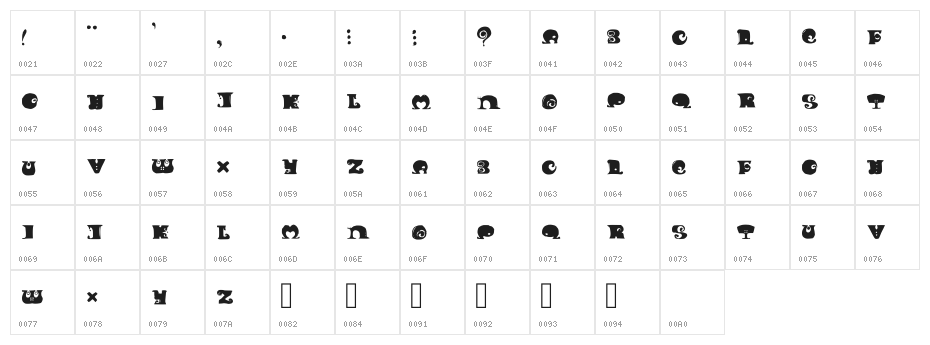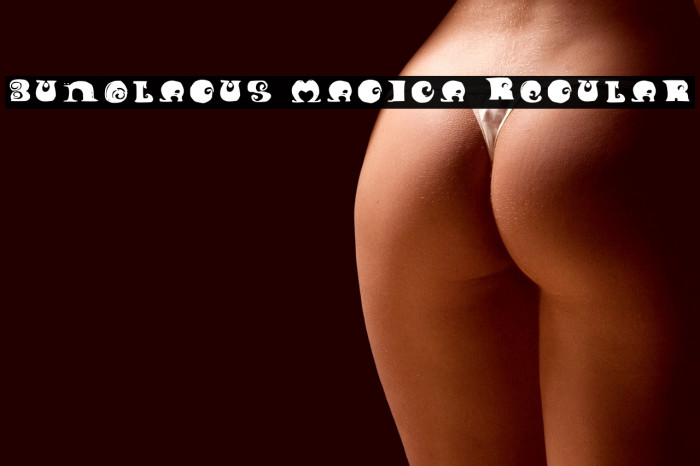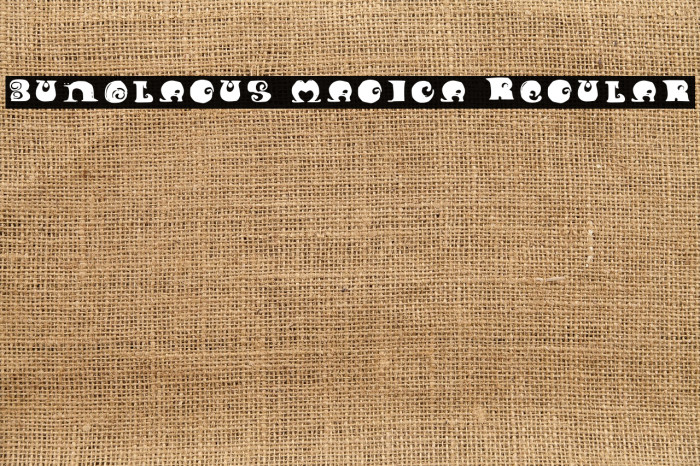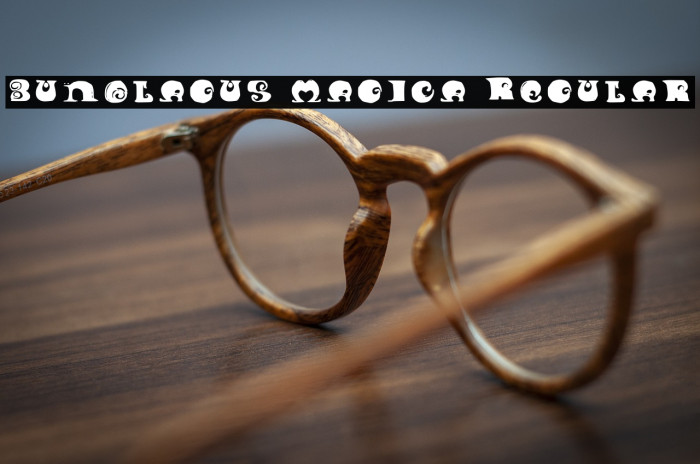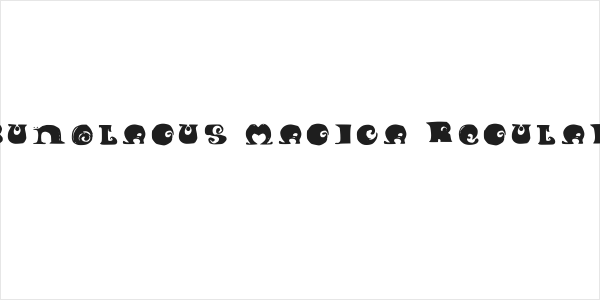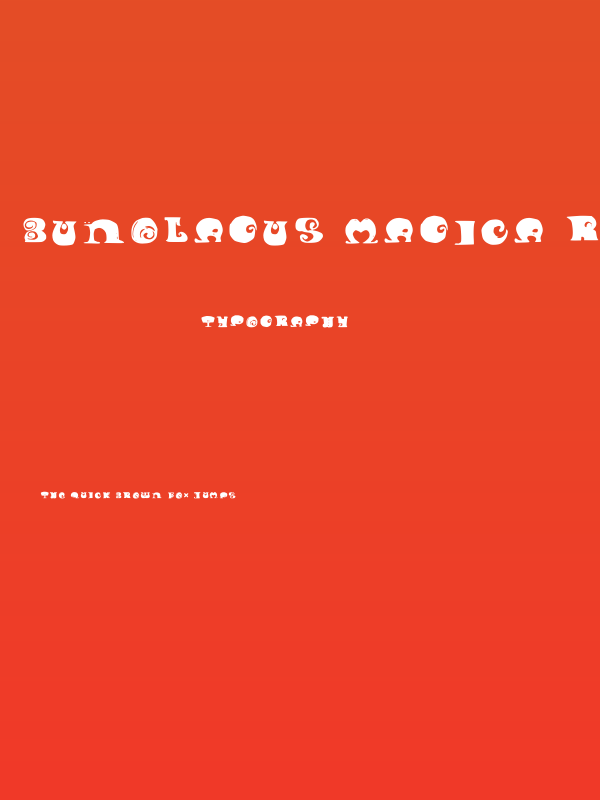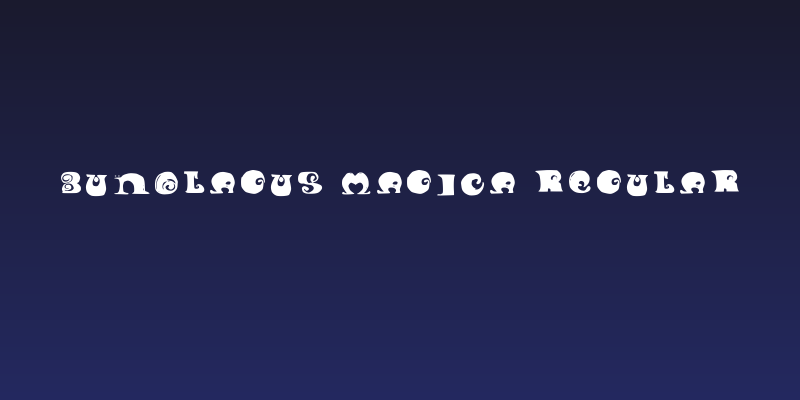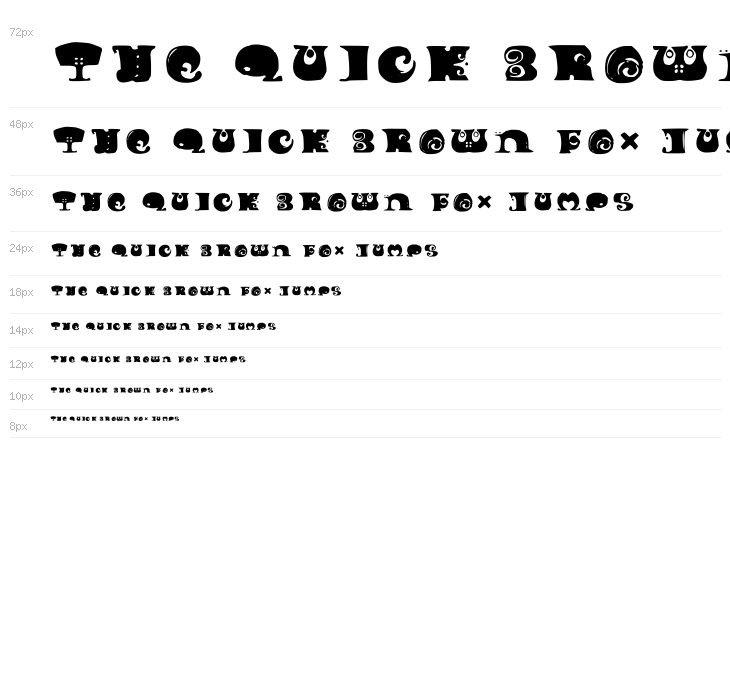
Bunolagus Magica Regular Font
Bunolagus Magica Regular Description
This font features a whimsical and playful design, characterized by its bold and decorative elements. Each letter is uniquely crafted with intricate details, such as swirls, dots, and varying line thicknesses, giving it a magical and enchanting appearance. The uppercase and lowercase letters maintain a consistent style, while the numbers and special characters are equally adorned with creative embellishments. The overall look is reminiscent of a fairy tale or fantasy theme, making it ideal for projects that require a touch of imagination and creativity.
| Proposed Projects | Perfect for children's books, fantasy-themed posters, party invitations, and whimsical branding. |